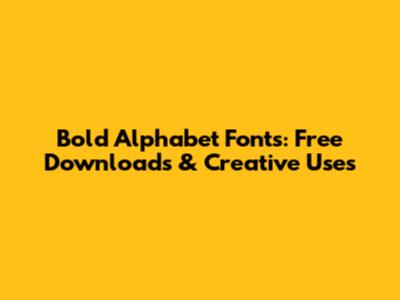
Bold Alphabet Fonts: Free Downloads & Creative Uses
Hey guys! Ever scrolled through a website, seen a cool design, and thought, "Wow, I wish I could make something that pop like that"? Well, a huge part of that visual punch often comes down to the typography, specifically bold alphabet fonts. And guess what? You don't need to break the bank to get your hands on some awesome ones. Today, we're diving deep into the world of bold alphabet fonts free download, exploring where to find them, how to use them, and why they're such a game-changer for your creative projects. Whether you're a seasoned designer or just starting out with a fun side hustle, having a go-to list of free, high-quality bold fonts is a must. We'll cover everything from classic serifs that demand attention to modern sans-serifs that exude confidence. So, get ready to level up your designs, make your text stand out, and unleash your creativity with the power of bold lettering. Let's get started!
Finding the Best Free Bold Alphabet Fonts
Alright, so you're on the hunt for some killer bold alphabet fonts free download options. Where do you even begin? The internet is a vast ocean of fonts, and sifting through them can be overwhelming. But don't sweat it, I've got your back. There are some fantastic resources out there that offer high-quality fonts for free, often with generous licensing that allows for commercial use. My top recommendation is always Google Fonts. Seriously, guys, Google Fonts is a goldmine. They have an incredible selection of fonts, all free to use for pretty much anything you can dream up. You can filter by weight, style, and even popularity, making it super easy to find that perfect bold font. Just type "bold" into the search or play around with the "Weight" slider. Another fantastic platform is Font Squirrel. They meticulously curate free fonts that are licensed for commercial work, so you can be sure you're using them legally. They have a great tagging system, so you can easily search for "bold" or "heavy" weights. DaFont and FontSpace are also popular choices, offering a massive variety. Just be a little more mindful of the licenses on these sites; some might be for personal use only, so always double-check! When you're browsing, look for fonts with clear, legible thick strokes. Sometimes, a font might look bold in a preview, but when you use it in context, it can become muddy or hard to read. Pay attention to the x-height, ascenders, and descenders to ensure readability. Think about the overall vibe you're going for – do you need a strong, industrial bold font, or something more playful and rounded? The world is your oyster when it comes to finding these gems.
Why Use Bold Alphabet Fonts in Your Designs?
So, why all the fuss about bold alphabet fonts free download? It's simple, really: they make a statement. In a world flooded with visual information, grabbing your audience's attention is key, and bold fonts are your secret weapon. They instantly add emphasis and visual weight to your text, making it impossible to ignore. Think about headlines on a website, titles in a presentation, or calls to action in an advertisement – these are prime spots where a bold font can make or break the impact. A well-chosen bold font can convey a sense of strength, authority, and confidence. It tells your audience that what you have to say is important and deserves their full attention. Beyond just grabbing attention, bold fonts significantly improve readability, especially in certain contexts. While thin or regular weights might get lost on a busy background or at a distance, a bold font cuts through the noise. This is crucial for things like signage, large print materials, or even just making sure your message is clear on a smaller screen. They are also incredibly versatile. You can find bold fonts that are sleek and modern, vintage and retro, quirky and fun, or elegant and sophisticated. This versatility means you can tailor the tone and personality of your message perfectly. Need to make a grand announcement? A thick, impactful serif font will do the trick. Want to create a cool, retro vibe? A chunky, rounded sans-serif could be just what you need. Bold fonts aren't just about making text bigger; they're about making it more impactful, more memorable, and more effective. They help guide the reader's eye, highlight key information, and ultimately, make your design more engaging and successful. Trust me, guys, incorporating bold fonts strategically is a design hack you'll want to master.
Creative Applications for Bold Fonts
Now that we know where to find awesome bold alphabet fonts free download options and why they're so darn useful, let's talk about how you can use them. The possibilities are pretty much endless, but here are some killer ideas to get your creative juices flowing. Graphic Design Projects are an obvious playground. Think posters, flyers, social media graphics, and branding materials. A bold font can be the hero of your design, making a tagline or event name leap off the page. Imagine a concert poster with the band's name in a massive, attention-grabbing bold font – instant impact! Web Design is another huge area. Bold fonts are perfect for headings, subheadings, and call-to-action buttons. They help structure your content, making it easier for users to scan and find what they're looking for. A strong heading can draw a user in and encourage them to read further. Presentations can also get a major facelift. Instead of boring, standard text, use bold fonts for your slide titles or key bullet points. It makes your presentation look more professional and keeps your audience engaged. Logo Design often relies heavily on bold typography. A strong, bold font can give a brand a powerful identity and make its name instantly recognizable. Think about iconic logos that use thick, distinctive lettering – they command attention. Crafting and DIY Projects are also fantastic for bold fonts. If you're making custom t-shirts, mugs, tote bags, or even vinyl decals for your home decor, bold fonts add that professional, eye-catching touch. You can easily download these fonts and use them with your cutting machines like Cricut or Silhouette. Video Titles and Overlays benefit immensely too. Bold fonts ensure your titles are readable even on a moving screen and add a strong visual element to your video content. Even for simple things like personal invitations or party decorations, a bold font can make your event feel more special and exciting. The key is to use them strategically. Don't go overboard and make everything bold; that defeats the purpose. Use bold fonts to highlight the most important information, create visual hierarchy, and add personality to your message. Experiment with different styles and see how they transform your projects!
Tips for Using Bold Fonts Effectively
Alright, let's get down to the nitty-gritty: how to use these awesome bold alphabet fonts free download selections without making your designs look messy or unprofessional. It's all about balance and intention, guys! First off, contrast is king. A bold font looks best when contrasted with a lighter font or plenty of white space. If everything is bold, nothing stands out. Pair your bold headline with a readable, regular-weight font for the body text. This creates visual hierarchy and makes your content easier to digest. Secondly, consider the context. Where will this bold text be seen? If it's for a small business card, a super chunky, condensed bold font might be illegible. If it's for a large billboard, you can go wild! Always think about the viewing distance and the size of your medium. Thirdly, don't overdo it. This is probably the most common mistake. Too much bold text can feel aggressive, overwhelming, and frankly, just annoying to read. Use bold fonts strategically for key elements: headlines, subheadings, important keywords, or calls to action. Let the rest of your text breathe. Fourth, spacing matters. Pay attention to kerning (the space between individual letters) and leading (the space between lines of text). Bold fonts, especially thicker ones, can sometimes have issues with letters crashing into each other or lines feeling too cramped. Adjusting these can make a huge difference in readability and overall aesthetic. Fifth, think about the mood. What feeling do you want to evoke? A heavy, slab-serif bold font might feel strong and industrial, while a rounded, humanist bold font might feel friendly and approachable. Choose a font that aligns with the message and brand personality you're trying to convey. Finally, test, test, test! Look at your design on different screens, print it out if possible, and get a second opinion. What looks good on your monitor might not translate perfectly everywhere. By following these tips, you'll be able to harness the power of bold fonts to make your designs shine, grab attention, and communicate your message effectively. It's all about making smart, intentional choices, and you guys can totally nail it!
So there you have it, my friends! We've explored the fantastic world of bold alphabet fonts free download options, from finding the best sources like Google Fonts and Font Squirrel to understanding why these fonts are such design powerhouses. We've also brainstormed some seriously cool ways to use them in your projects, whether you're a digital whiz or a crafty guru. Remember, bold fonts aren't just about making text look thick; they're about adding impact, improving readability, conveying confidence, and making your message impossible to ignore. They are essential tools in any designer's arsenal, offering a straightforward way to elevate your work from 'meh' to 'wow!' Don't be afraid to experiment with different styles, weights, and applications. The key is to use them thoughtfully and strategically, ensuring they enhance rather than overwhelm your design. So go forth, download some amazing free bold fonts, and start making your text truly unforgettable. Happy designing, guys!